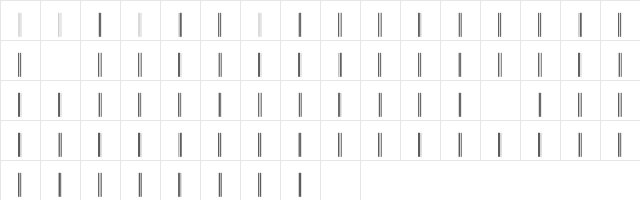
C39P48DhTt Normal
Design Context for C39P48DhTt Typeface
C39P48DhTt is a composed and adaptable typeface that performs quietly and consistently across a wide range of design contexts.